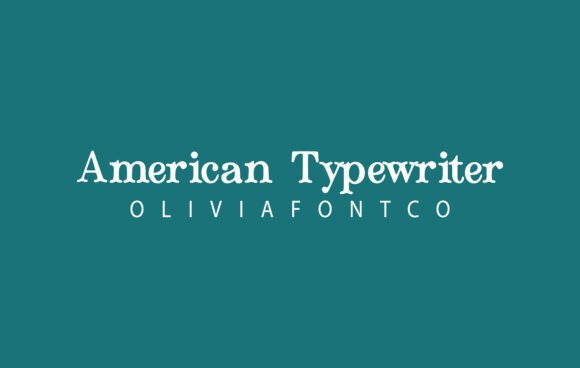
Whether you’re working on creative branding, nostalgic-themed projects, or personal stationery, American Typewriter Font brings authenticity, warmth, and sophistication to the table. Let’s explore why this typeface continues to win over designers worldwide.
📜 The History & Inspiration Behind American Typewriter Font
First introduced in the 1970s, the original American Typewriter was designed by Joel Kaden and Tony Stan for the International Typeface Corporation (ITC). The idea was to create a font that celebrated the typewriter’s influence while adapting it for modern print and advertising.
Unlike purely mechanical typewriter fonts, American Typewriter softened the edges and introduced more balanced proportions. The result is a monospaced-inspired serif that feels friendlier, warmer, and more versatile.
Today, many variations exist—some keeping true to the vintage typewriter look, while others (like the handwritten-inspired version) add a romantic, human element.
🌟 Key Features of American Typewriter Font
Vintage Typewriter Roots – Inspired by old-school typing machines.
Romantic Handwritten Flair – Adds warmth and a personal touch to designs.
Readable & Elegant – Balances nostalgia with legibility.
Versatile Application – Works for logos, posters, books, and invitations.
Balanced Proportions – Serif style that remains clear even at smaller sizes.
🎯 Best Use Cases for American Typewriter Font
One of the biggest strengths of American Typewriter is its adaptability. Here are some top ways to use it:
Retro Branding – Perfect for coffee shops, bookstores, and craft stores with a vintage vibe.
Wedding & Event Invitations – The handwritten twist makes it ideal for personal, heartfelt stationery.
Editorial Design – Works beautifully in magazines, newspapers, and literary publications.
Product Packaging – Great for artisanal goods like candles, baked treats, and handmade products.
Quotes & Posters – Delivers character and nostalgia for home decor prints.
Digital Content – Use it for social media graphics, blog headers, and email banners.
🎨 Design Tips for Using American Typewriter Font
Because American Typewriter sits at the intersection of vintage and modern, it plays well with a variety of styles—if you know how to balance it.
Pair with Clean Sans-Serifs – Fonts like Helvetica or Lato complement its nostalgic character.
Use Warm Color Palettes – Sepia tones, cream, and muted pastels enhance the vintage feel.
Experiment with Texture – Try adding grain, paper textures, or faded ink effects for authenticity.
Mind the Spacing – Typewriter fonts often look better with slightly looser letter spacing.
Highlight Short Phrases – Works best for titles, headlines, and emphasis rather than long paragraphs.
Pro Tip: Because this font often comes with stylistic alternates and ligatures, check your software’s OpenType features to unlock its full potential.
✅ Why Designers Love American Typewriter Font
Timeless Aesthetic – Combines nostalgia with a modern edge.
Highly Versatile – Suitable for both personal and commercial branding.
Romantic Personality – Adds warmth to any project.
Unique Twist on a Classic – Keeps the typewriter charm without feeling outdated.
Q2. Is this the same as the original ITC American Typewriter?
No—the classic ITC version is more rigid, while this modern interpretation adds a handwritten, romantic feel.
Q4. Is American Typewriter good for long text?
It’s best for titles and short passages. For long reading content, a cleaner serif or sans-serif is more comfortable.
Q5. Can I pair American Typewriter with script fonts?
Yes—just make sure the styles complement each other. It pairs well with light calligraphy fonts for elegant branding.
📌 Final Thoughts
American Typewriter Font bridges the gap between nostalgic charm and modern versatility. Its typewriter-inspired structure evokes authenticity, while its romantic handwritten influence adds warmth and personality.
Whether you’re designing branding for a retro café, creating heartfelt wedding invitations, or styling a vintage-inspired blog, this font will give your project a unique, timeless voice.